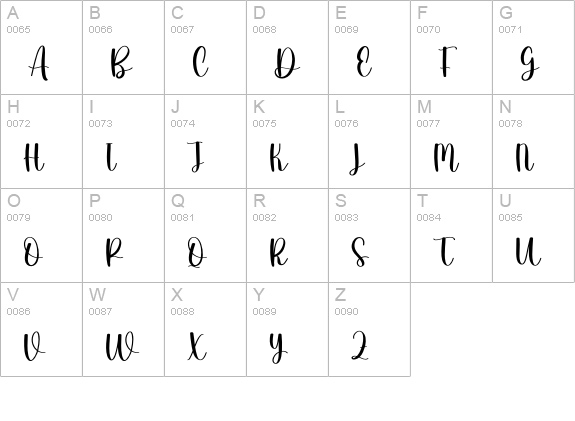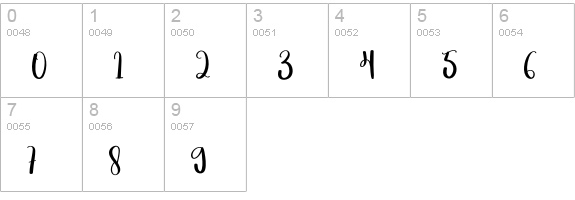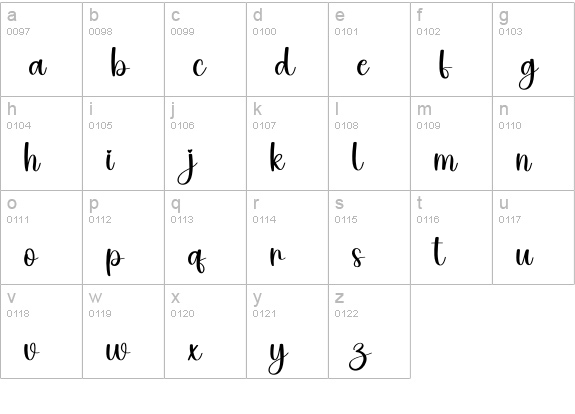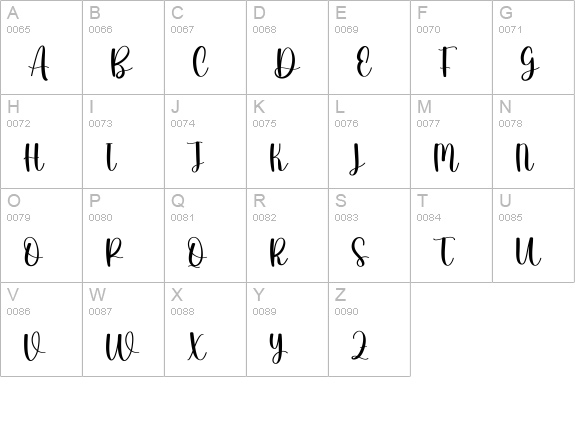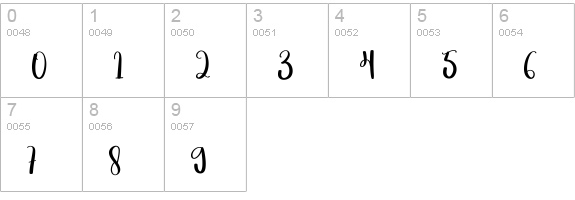
Bestie font is a charming and versatile typeface that brings a touch of friendliness to any design project. With its smooth curves and clean lines, this font exudes a modern and playful vibe that is perfect for a wide range of applications. Whether you're designing a logo, creating social media graphics, or crafting invitations, Bestie font is sure to add a fun and inviting element to your work.